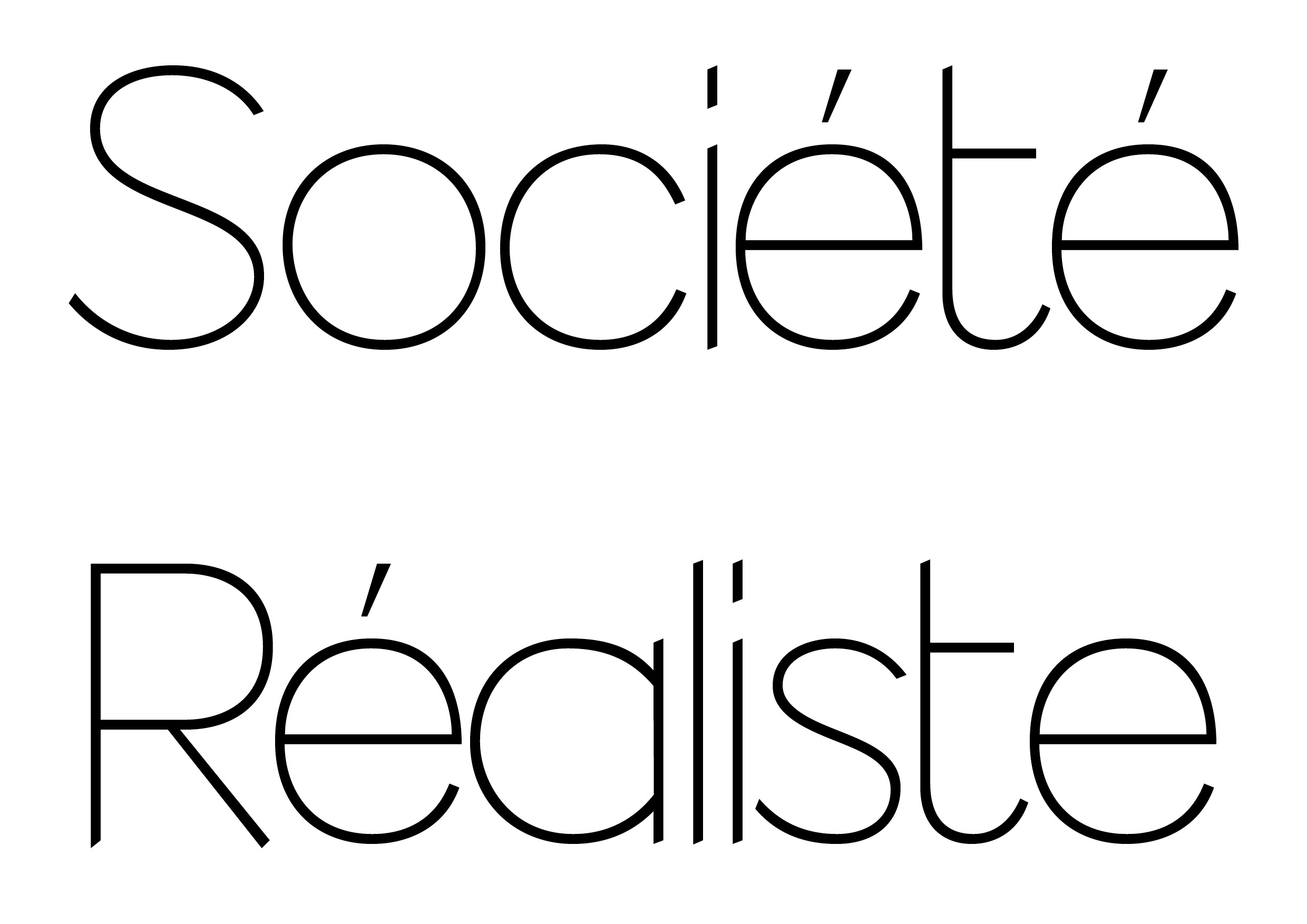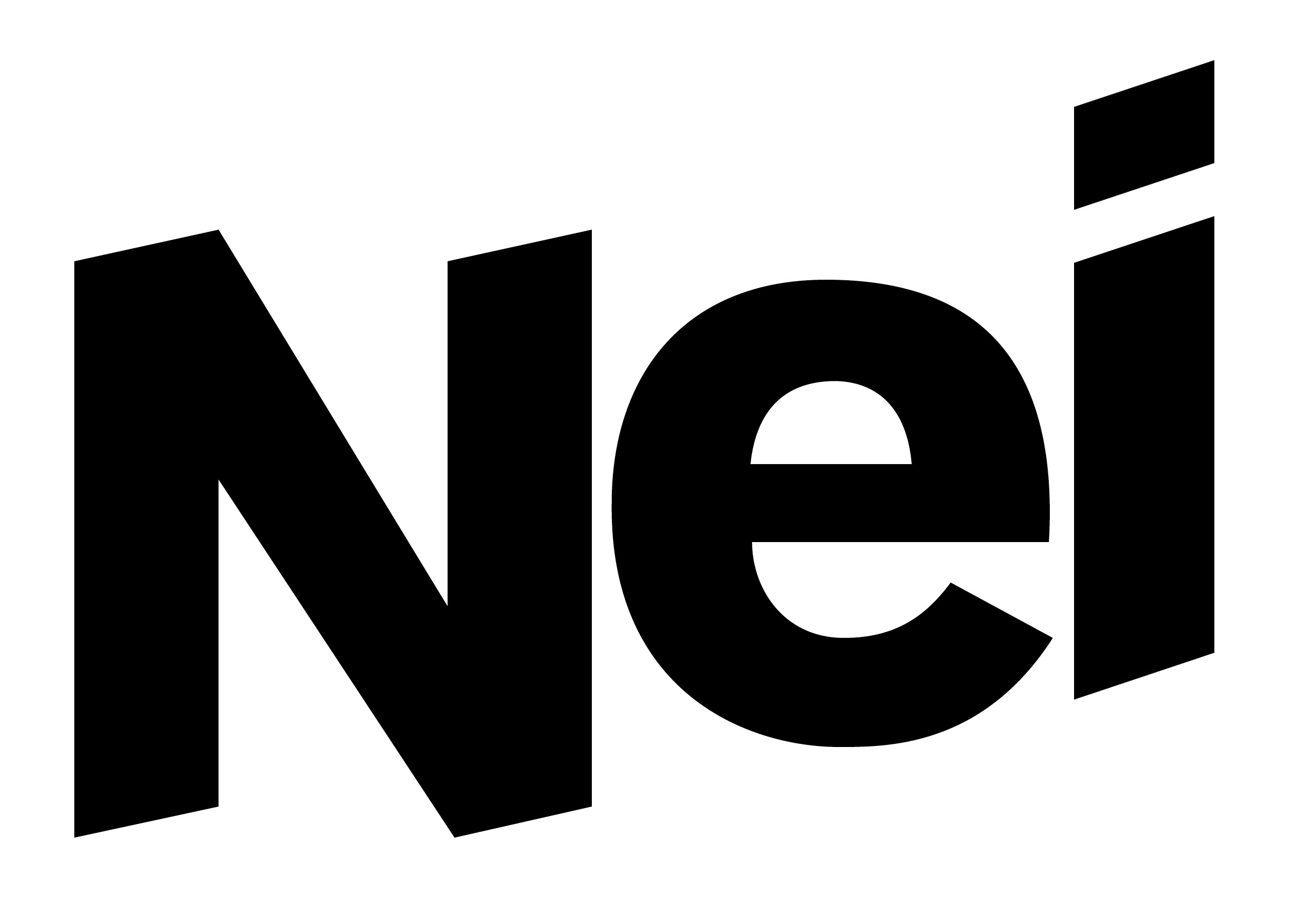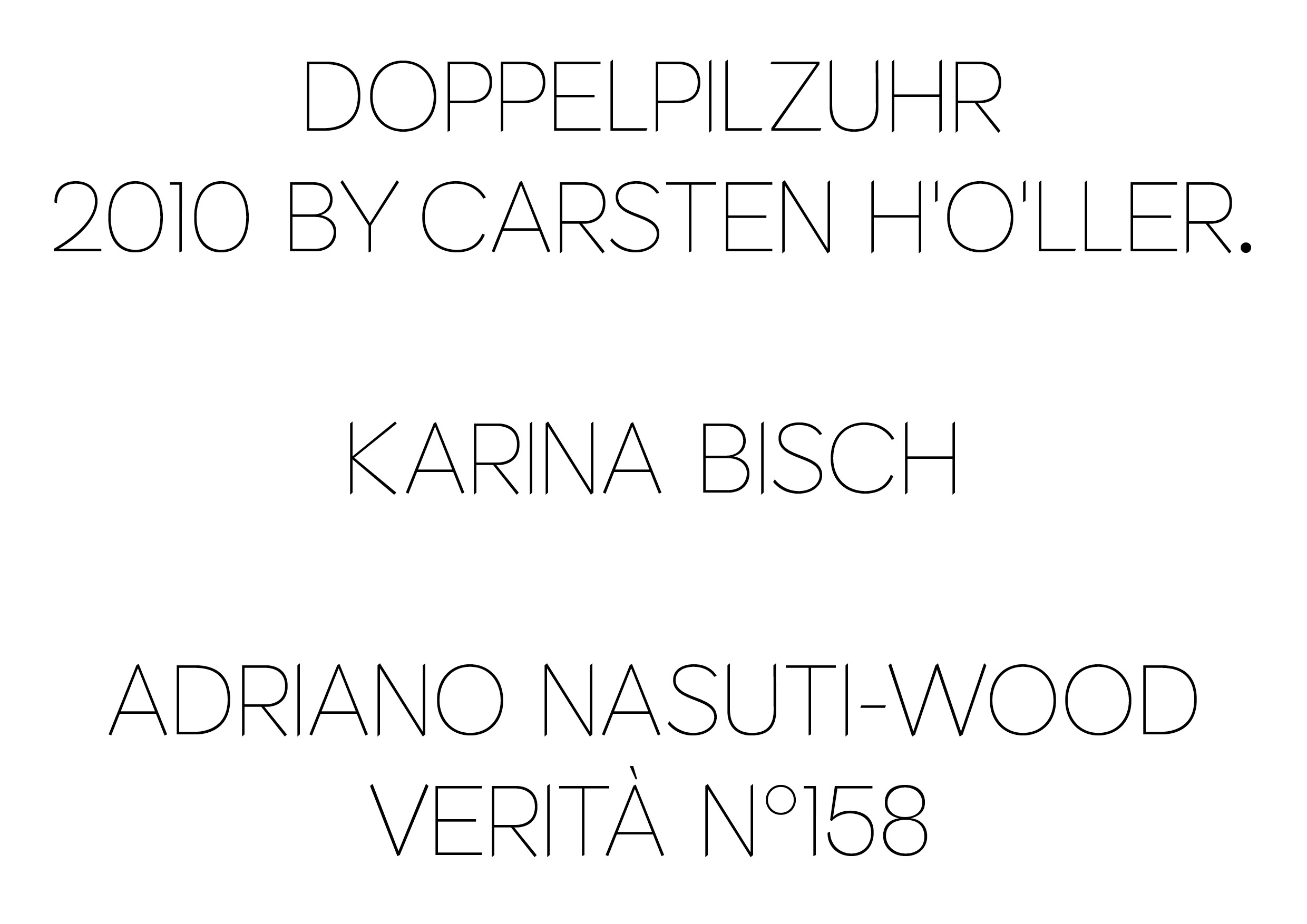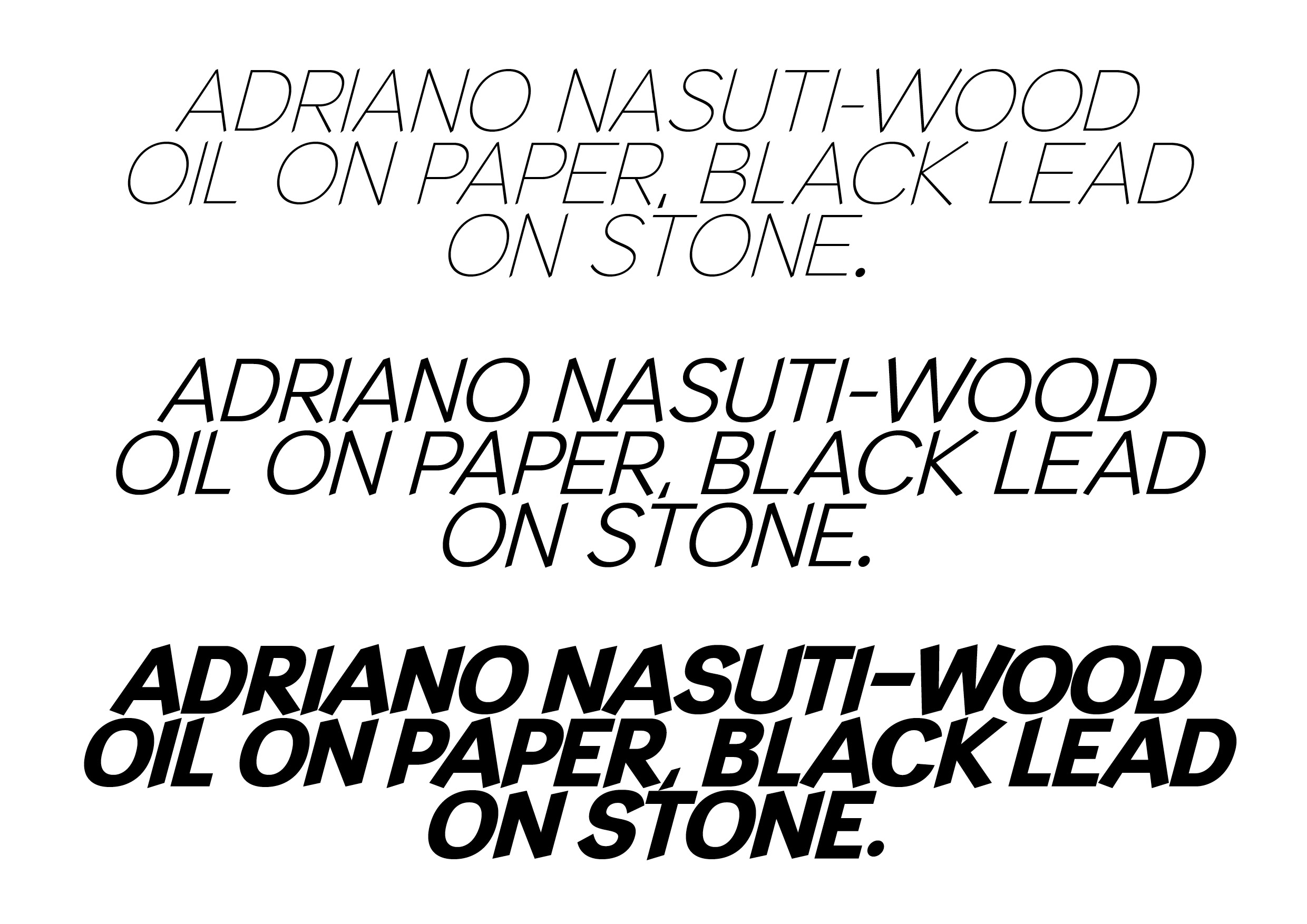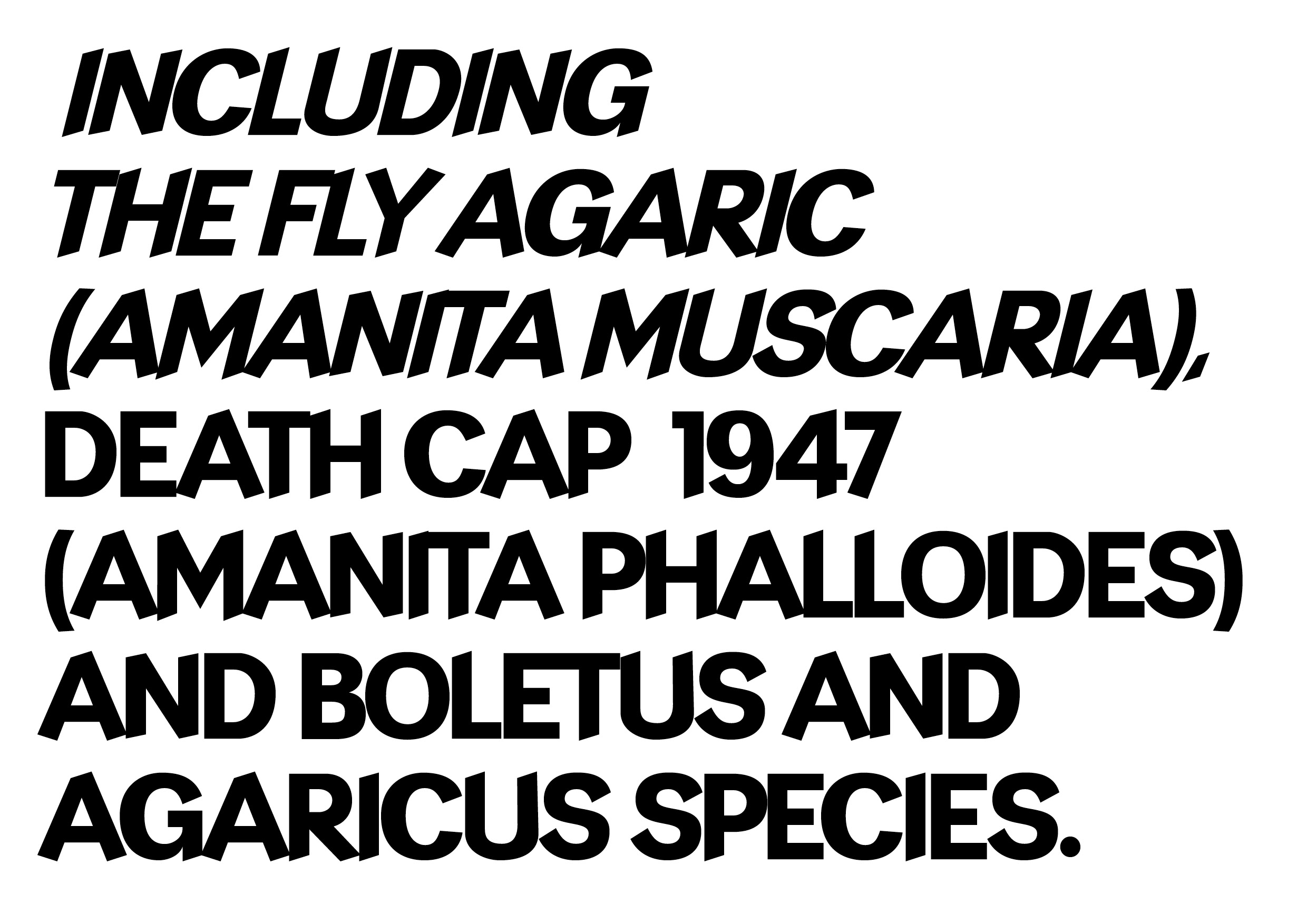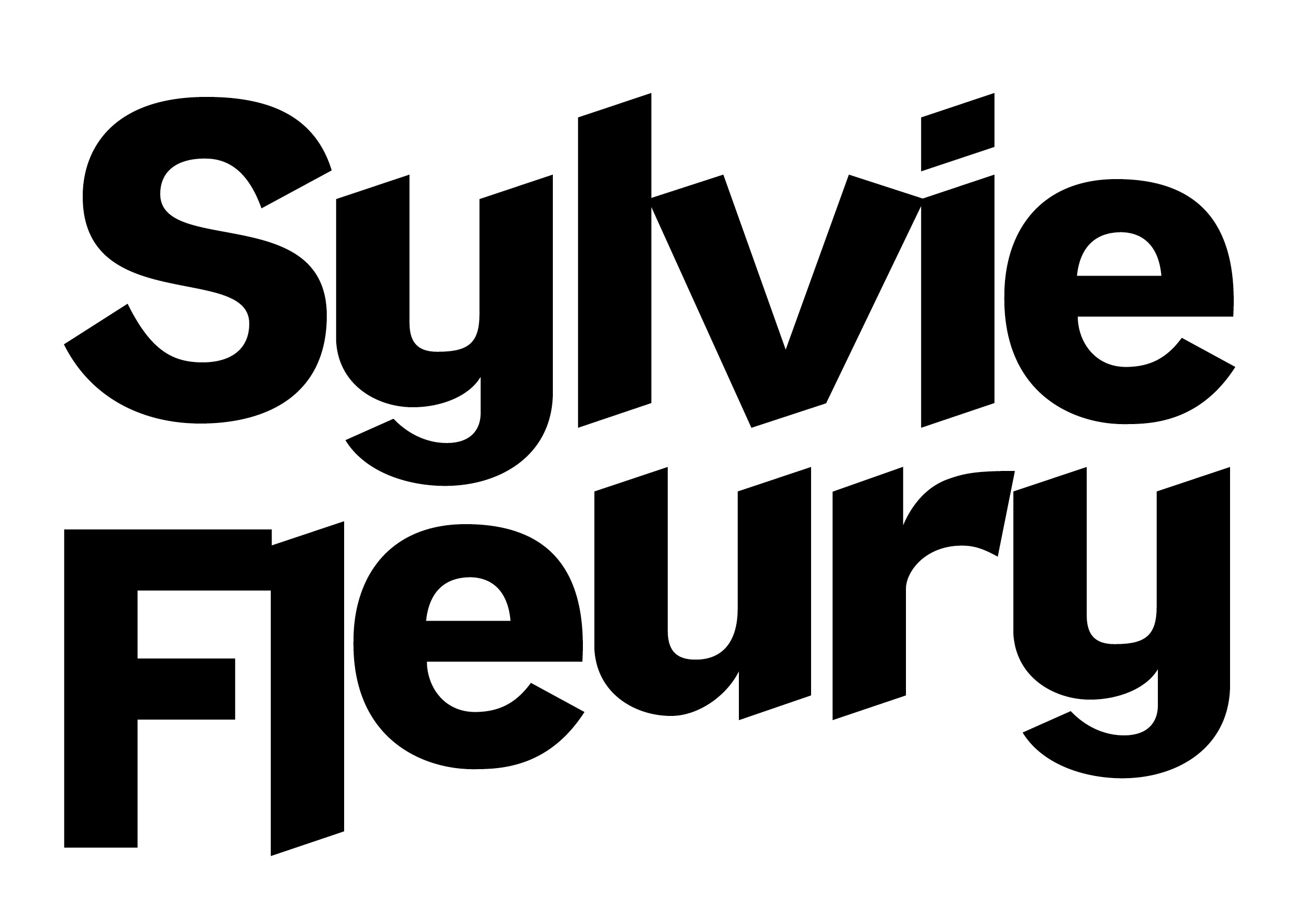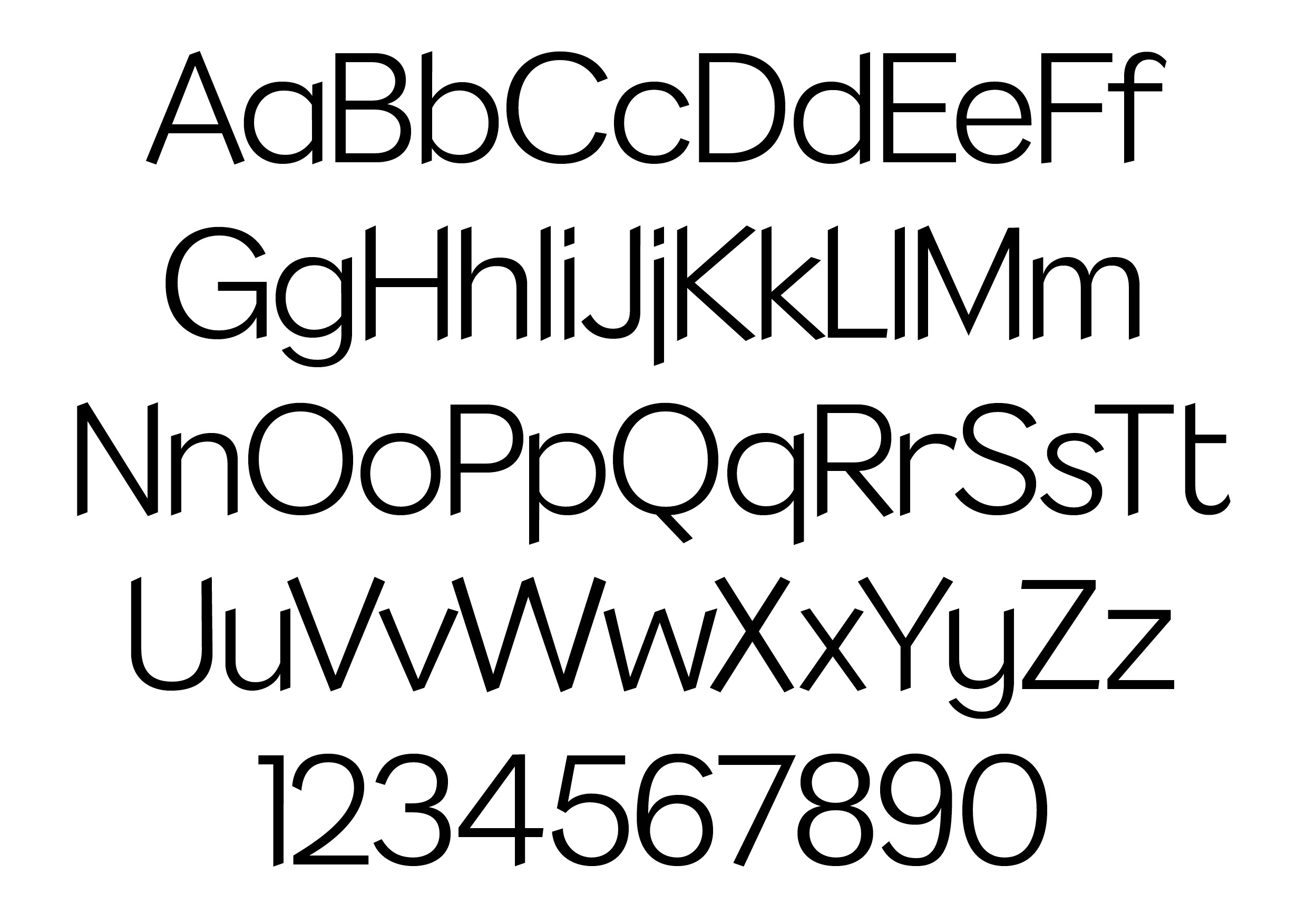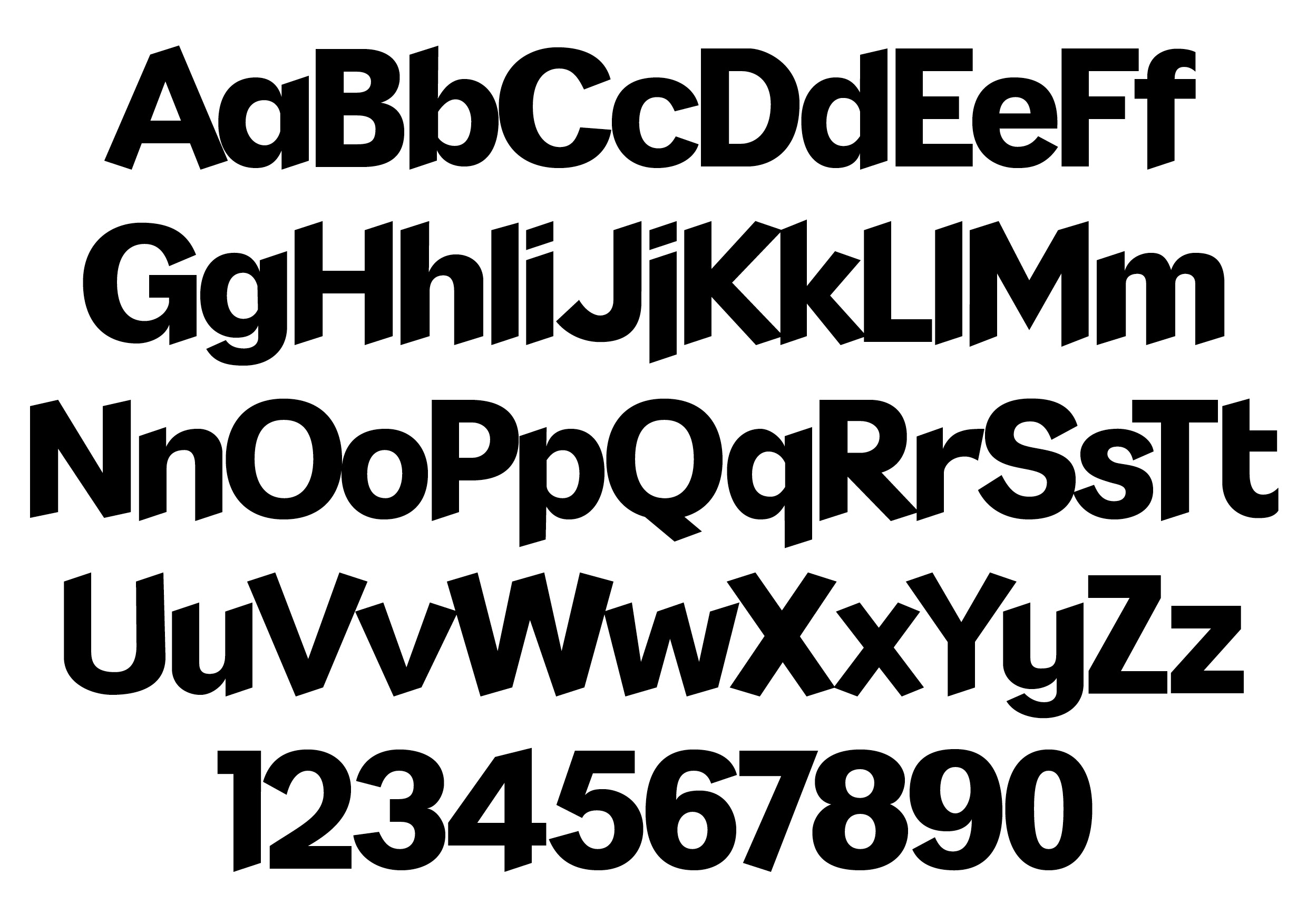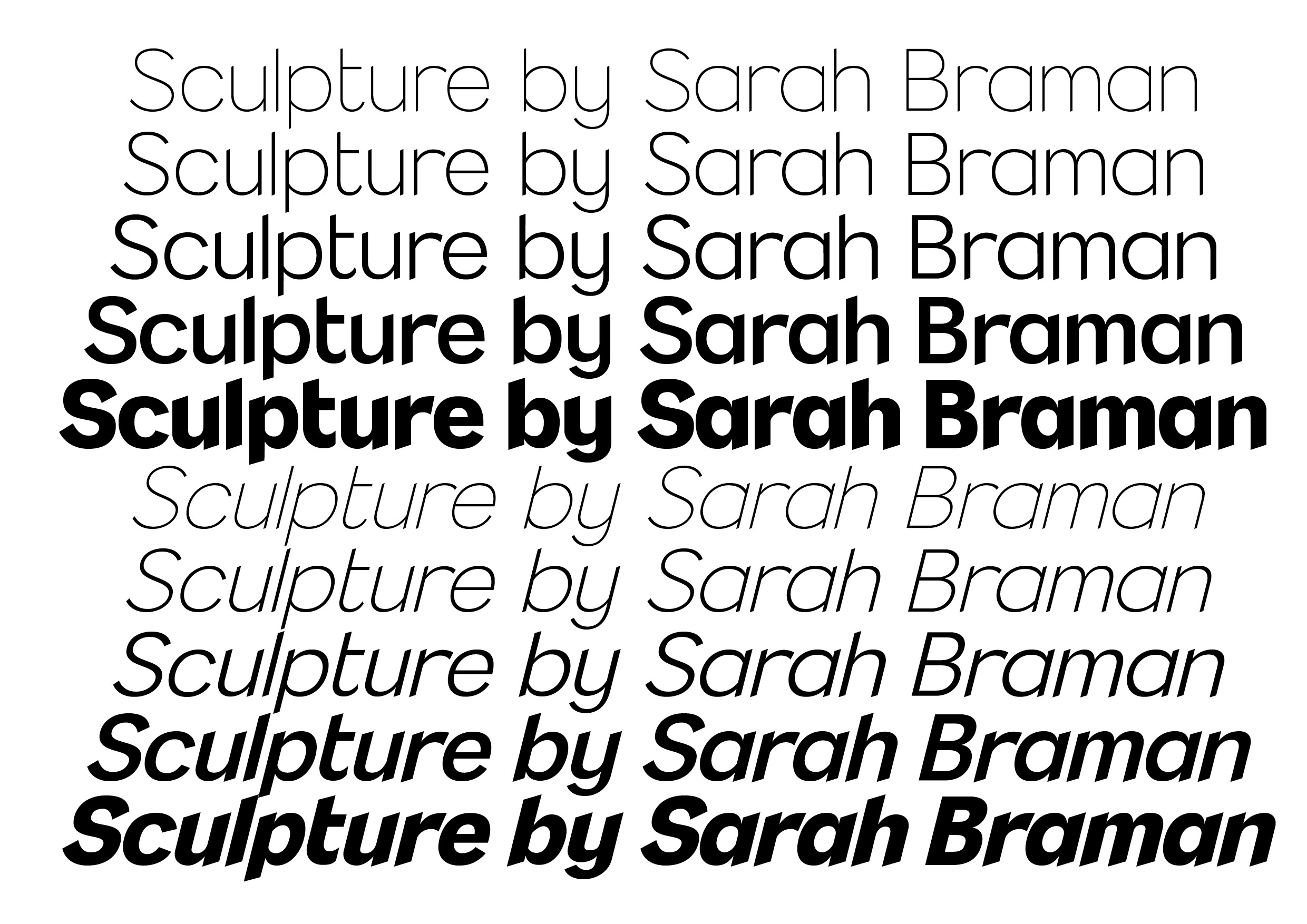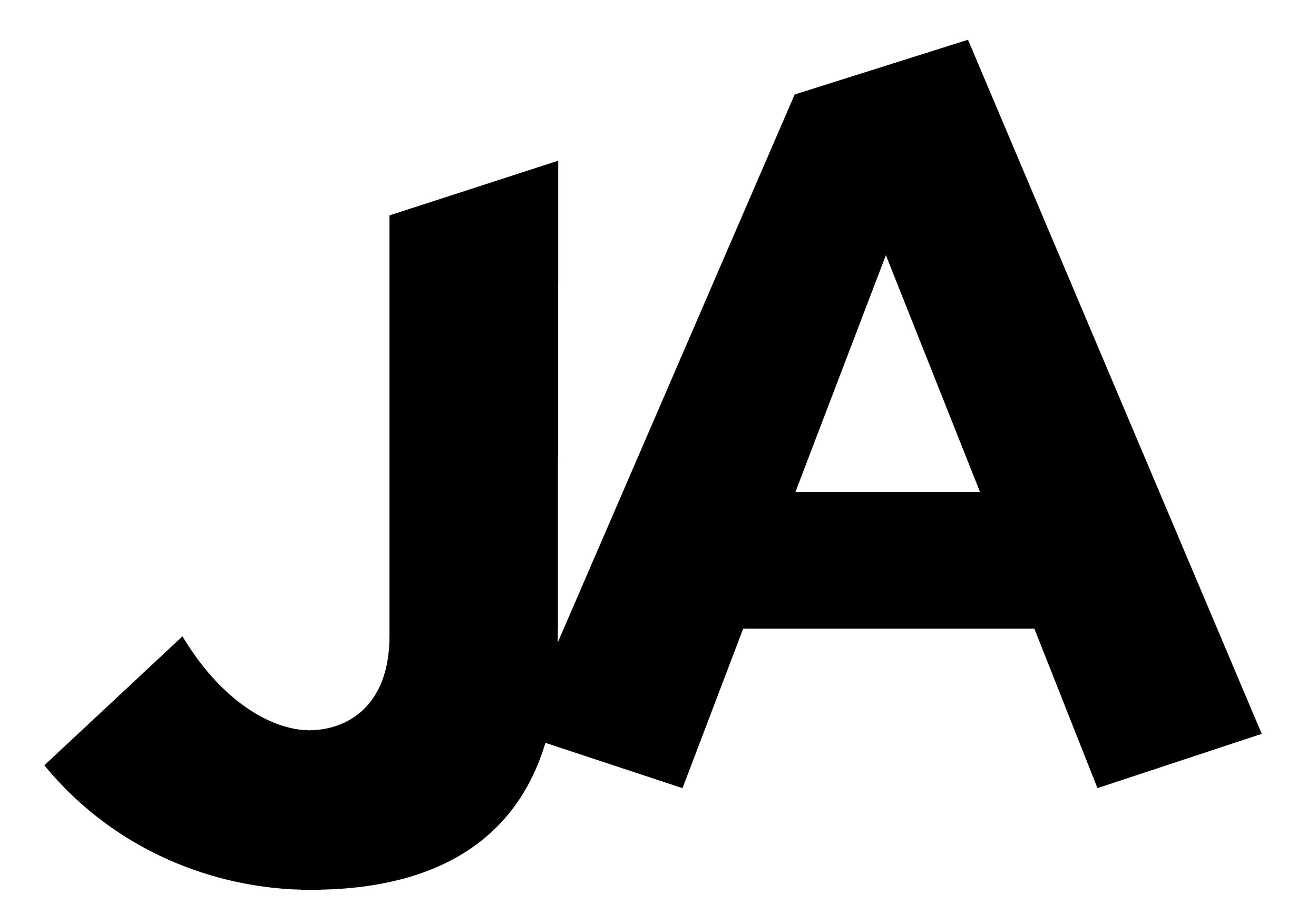
Tilt Script
Tilt Script is an expressive typeface that reimagines the possibilities of sign painting, blending handcrafted character with contemporary design. Its distinctive tilt system allows each weight to introduce a different angle, enabling designers to dial up or down the expressive impact to suit their vision. Balancing individuality with modern sophistication, Tilt Script lends projects a sense of movement and elegance. With its captivating aesthetic, it adds flair and distinction to any composition, whether in bold headlines, eye-catching displays, or statement typography. This typeface carries a personality and presence that commands attention.
4 weights